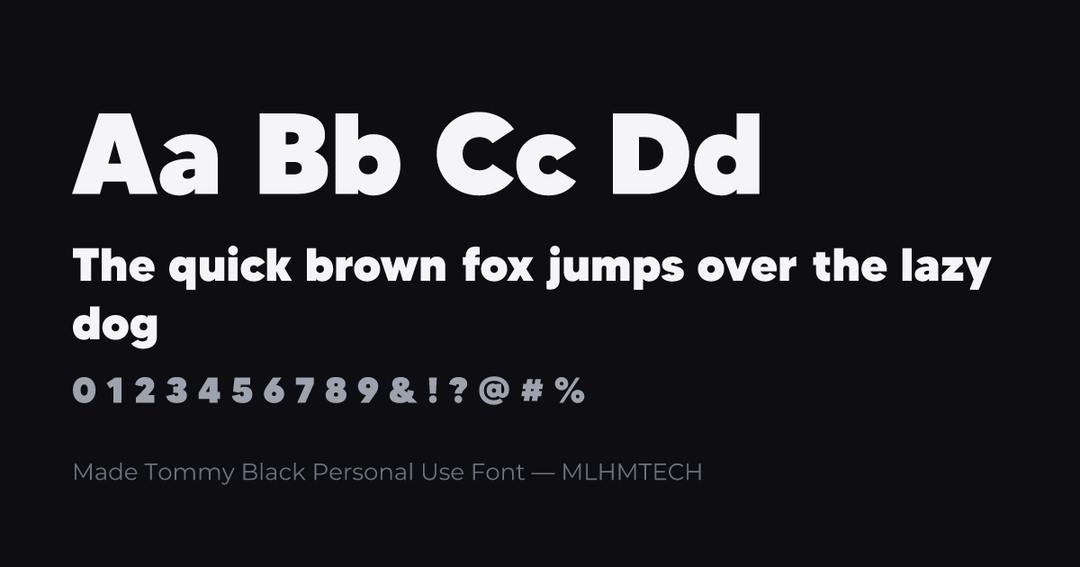
Made Tommy Black Personal Use Font
Made Tommy Black is a bold, modern display font ideal for eye-catching titles and designs. This OTF file is licensed for personal use only.
Made Tommy Black is a striking display font that commands attention. Its thick, clean strokes and contemporary letterforms make it perfect for headlines, posters, logos, and video titles. The font's strong presence adds a touch of sophistication and boldness to any creative project.